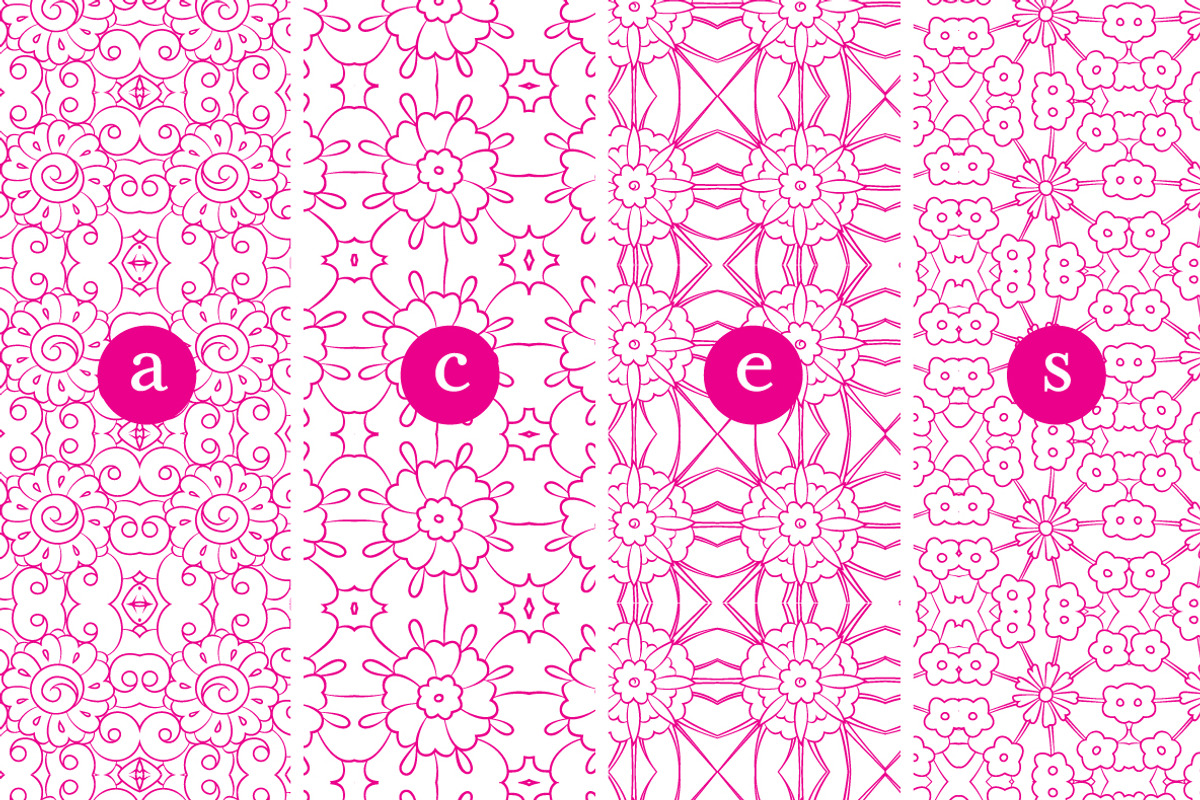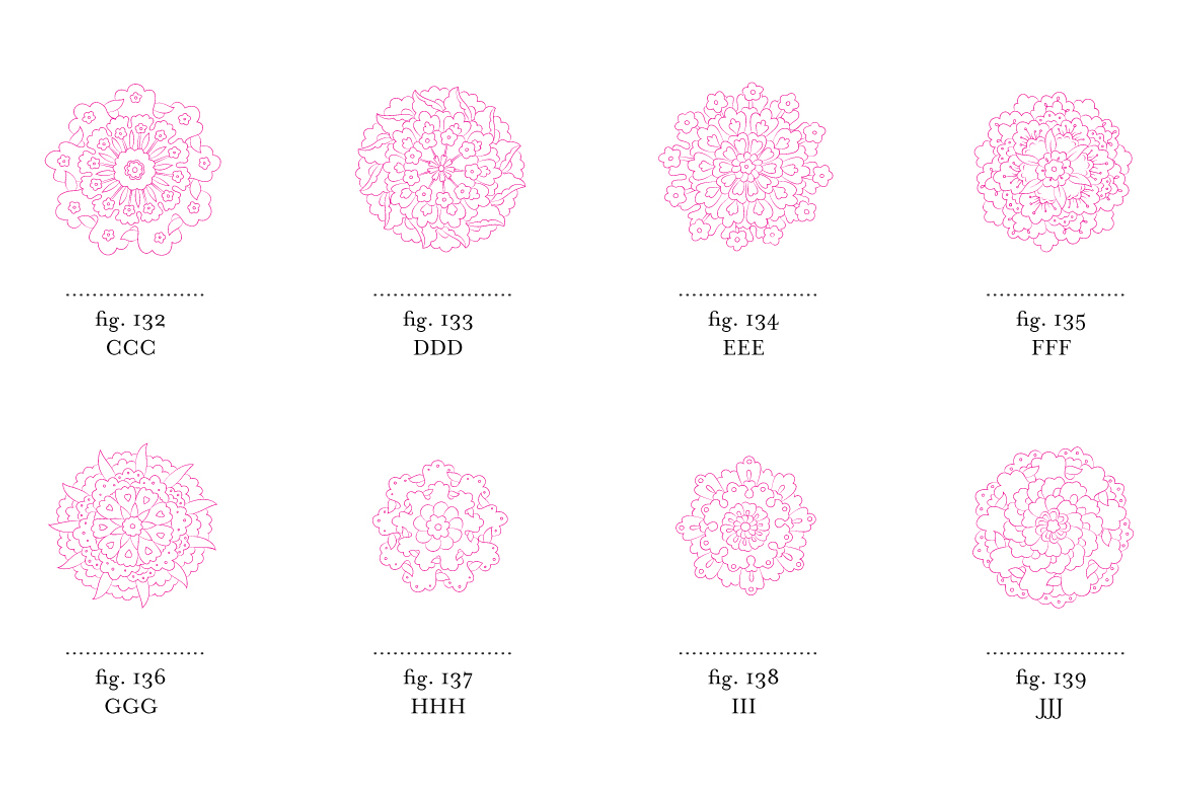
Lale
With the design of the Lale dingbat typeface, my aim was to use Opentype technology to enhance the possibilities of ‘picture’ fonts.
By combining the substitution features included in ligatures, this font does not only offer the basic 52 signs, but rather plays with various glyph combinations to offer 156 different signs that can then be combined with 30 differents stems.
The result, is over 4800 design solutions that can easily be accessed by a sequence of letters or numbers; the keyboard has just become your best design tool.